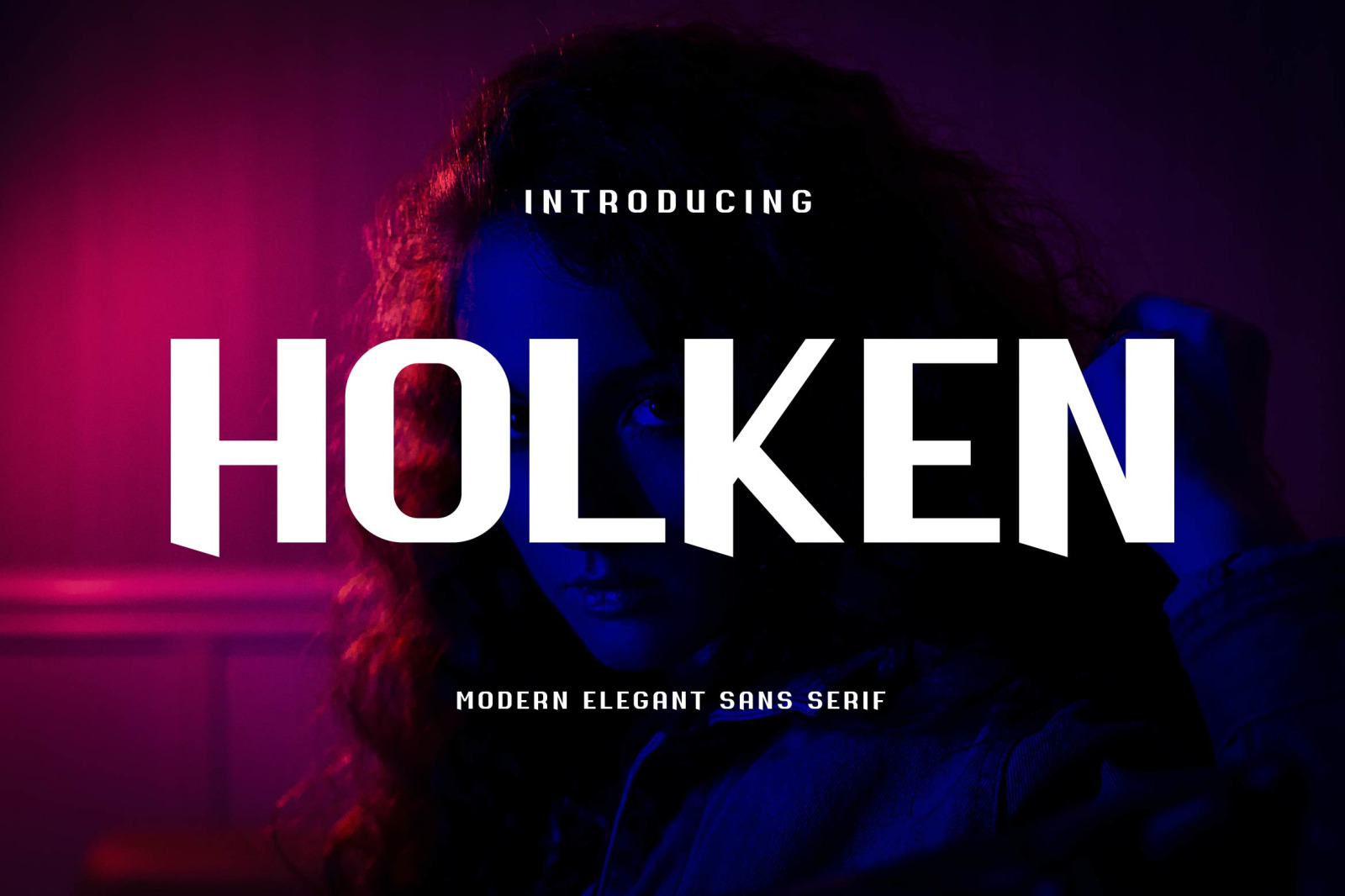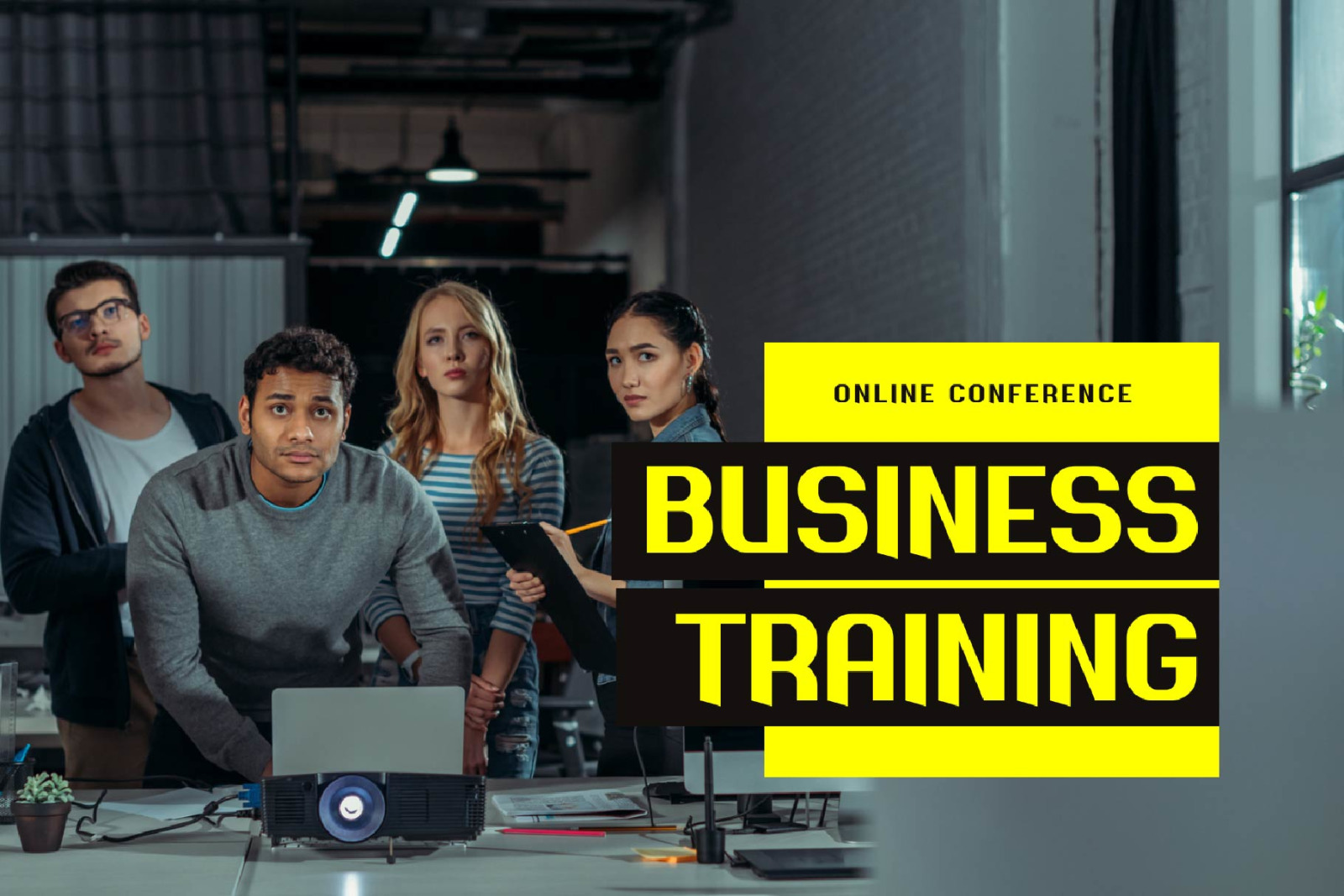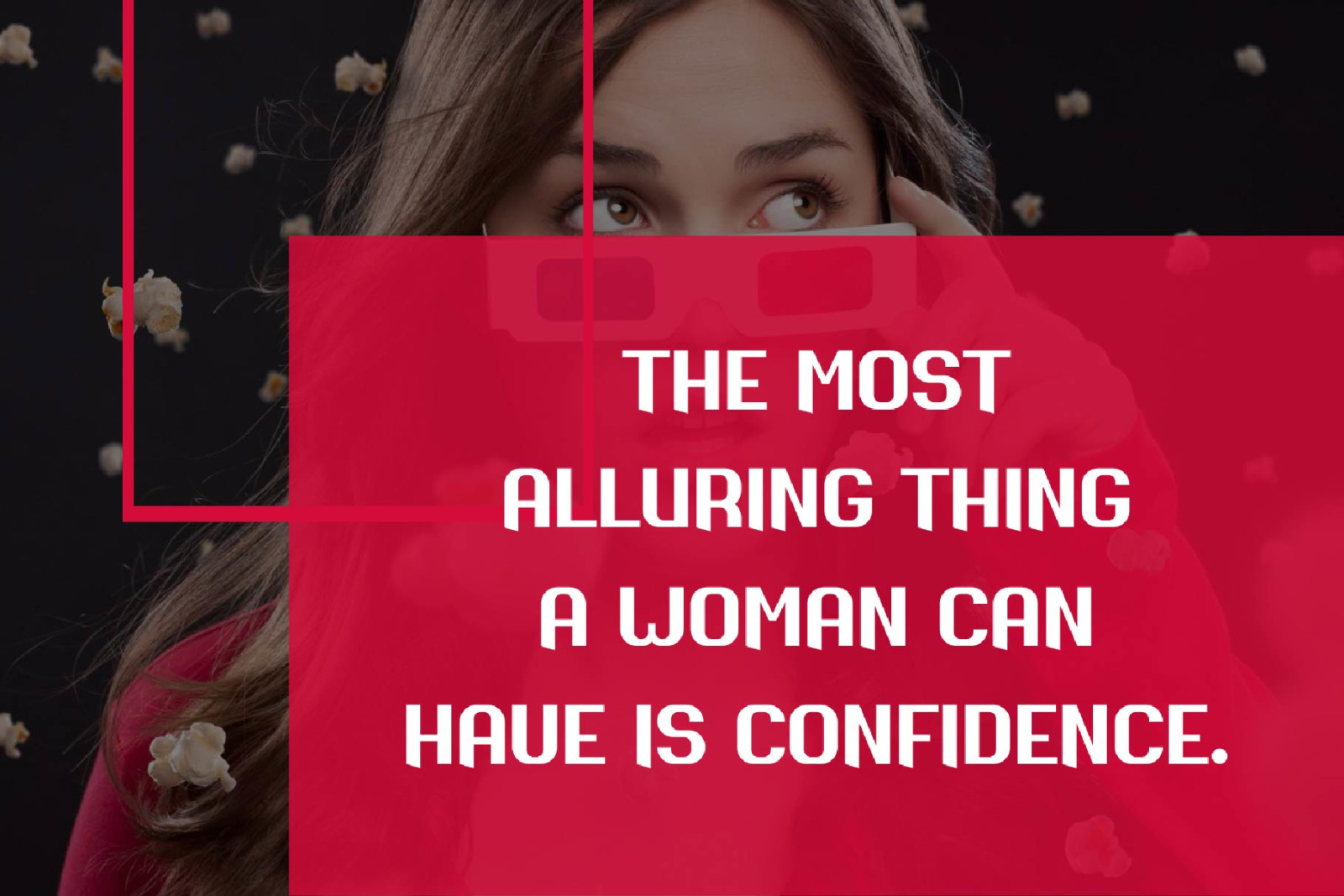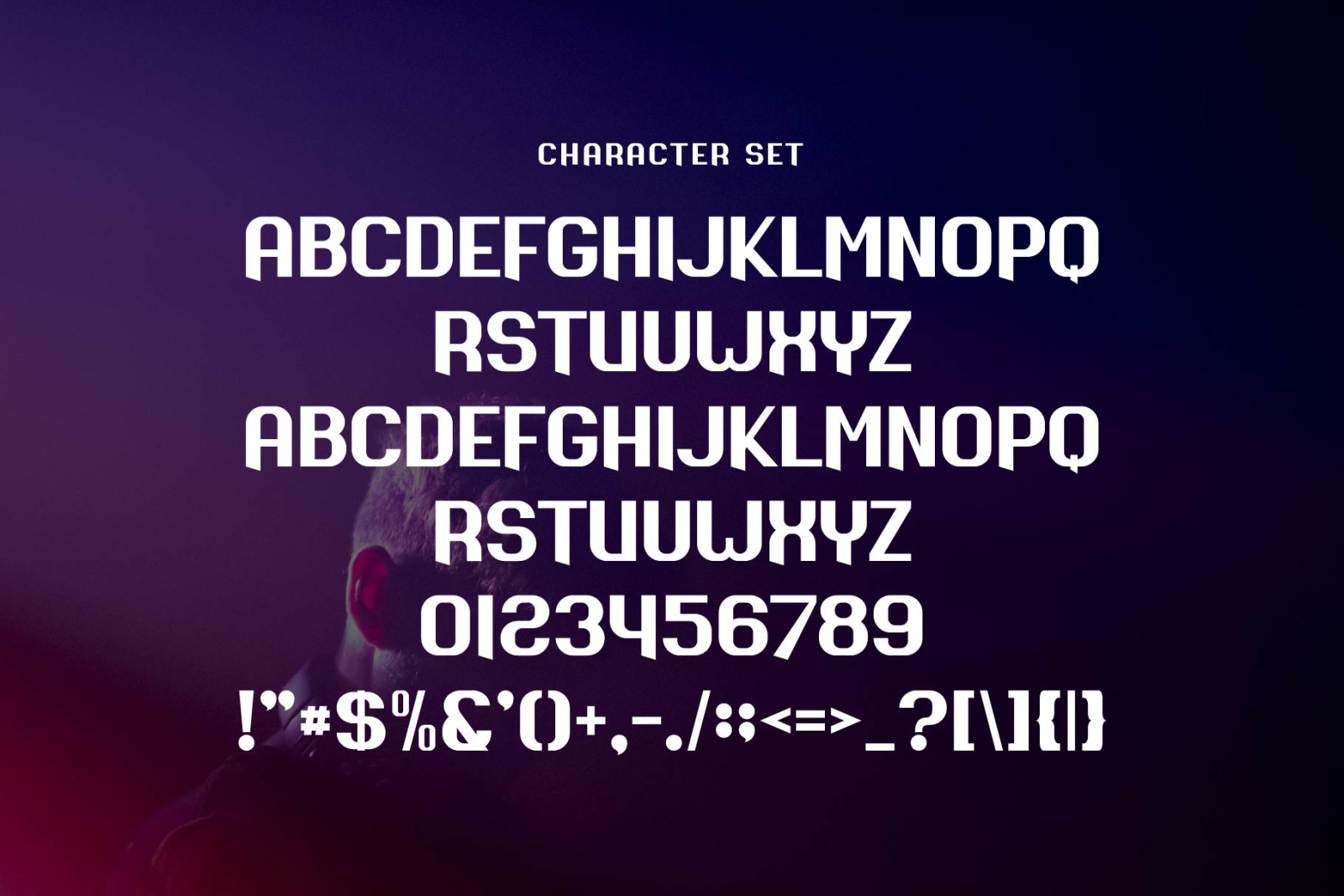
Holken Font
Holken Sans Font Typeface inspired by the famous minimalist logo perfect for the purposes of designing templates, brochures, videos, advertising branding, logos, invitation, layout design, elegant crafting, beauty design and other.